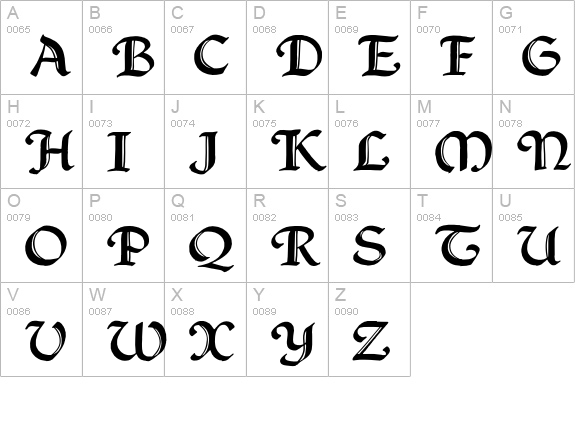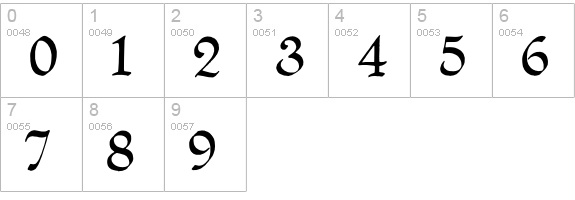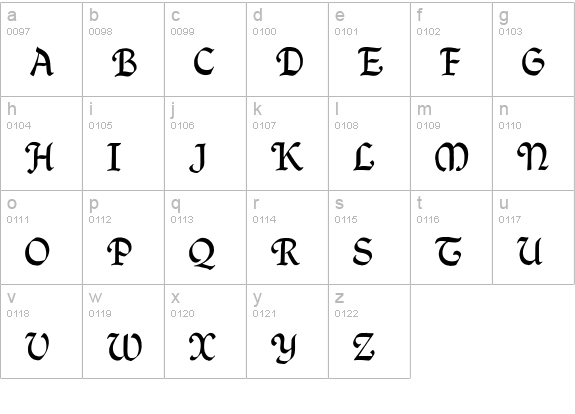
QuillCapitals Font Details
QuillCapitals is a stunning and elegant font that exudes sophistication and charm. With its unique and artistic design, this font is perfect for adding a touch of class to your projects. The uppercase letters are beautifully crafted with intricate details that make them stand out. Whether you are creating invitations, logos, or any other design, QuillCapitals is sure to make a statement. The best part? QuillCapitals is completely free to download at FontsMarket.com. This means you can easily access this beautiful font and use it for all your creative endeavors without any cost. Don't miss out on the opportunity to enhance your designs with the timeless elegance of QuillCapitals. Download it now and let your creativity shine!